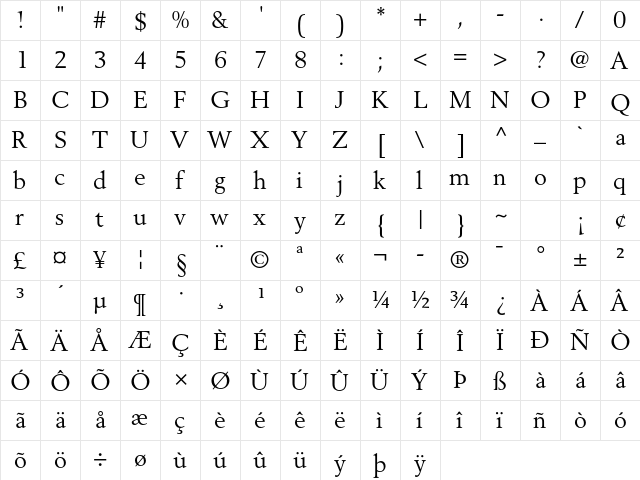
Berling LT Std Roman
| Designer | Karl-Erik Forsberg |
Design Context for Berling LT Std Typeface
Berling LT Std offers clean, dependable letterforms without strong stylistic allegiance, making it a practical choice for designers who need flexibility. Its slender proportions lend an understated elegance to any composition.